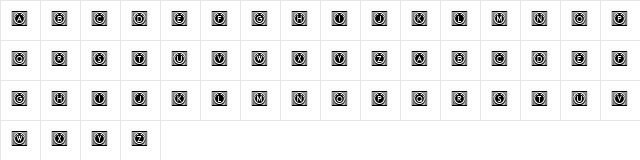
Official Capitals Black Regular
Design Context for Official Capitals Black Typeface
Official Capitals Black is a composed and adaptable typeface that performs quietly and consistently across a wide range of design contexts.